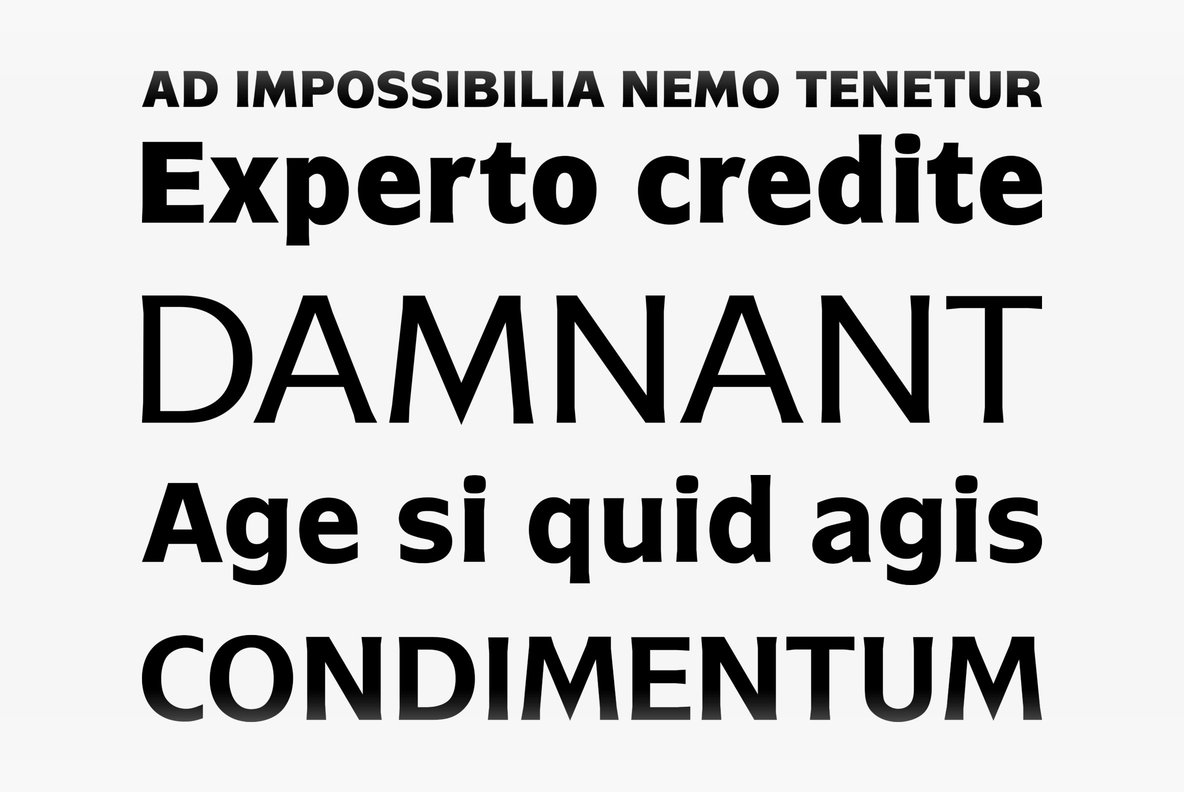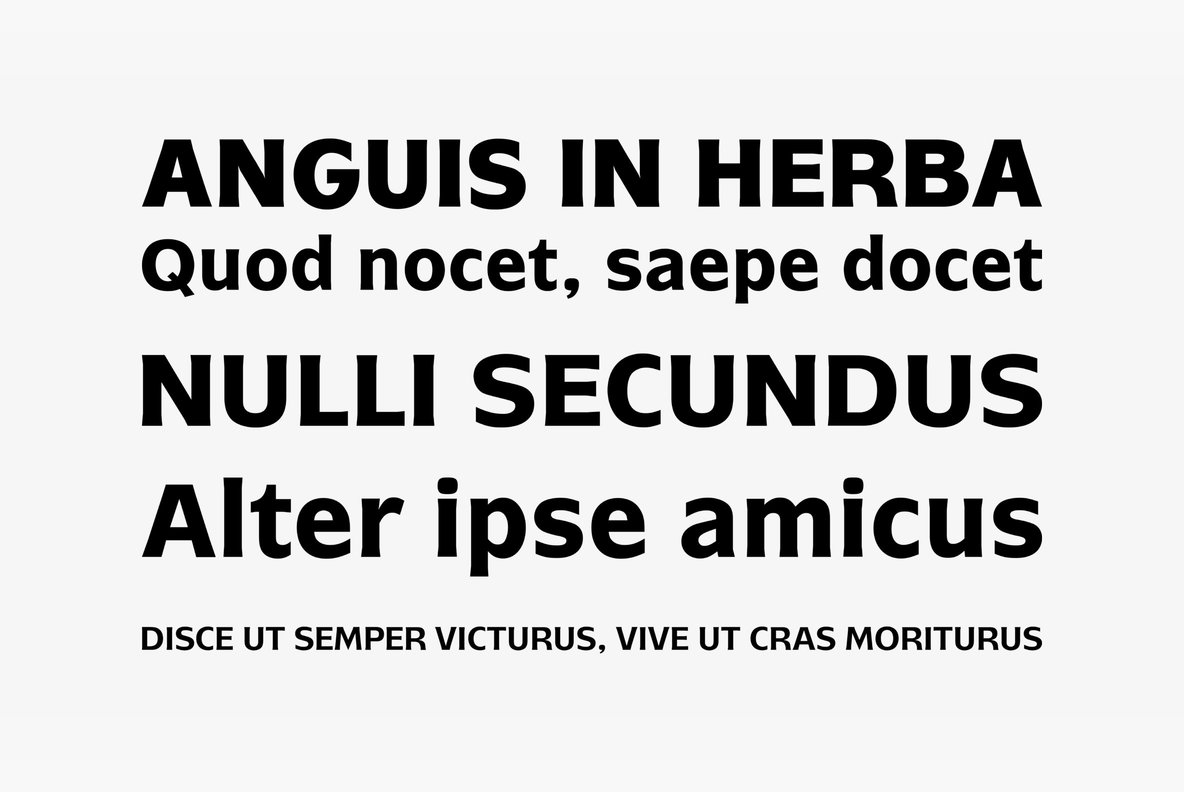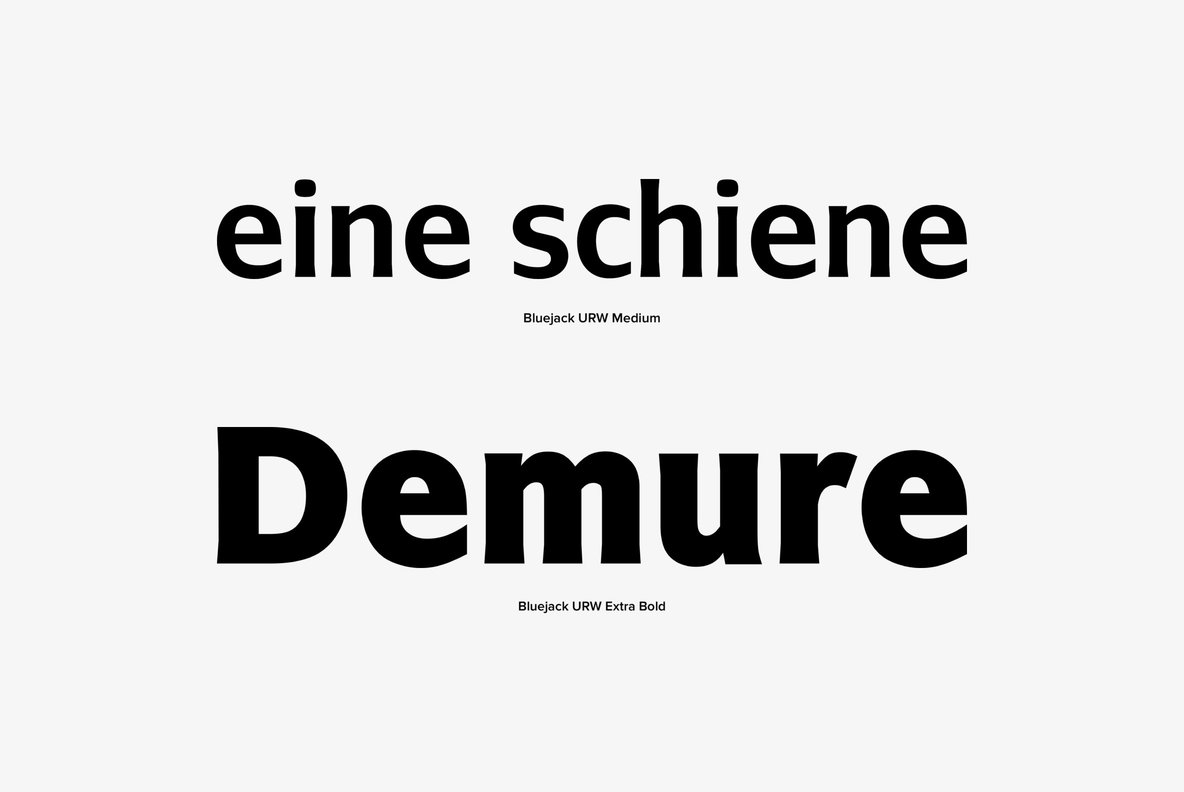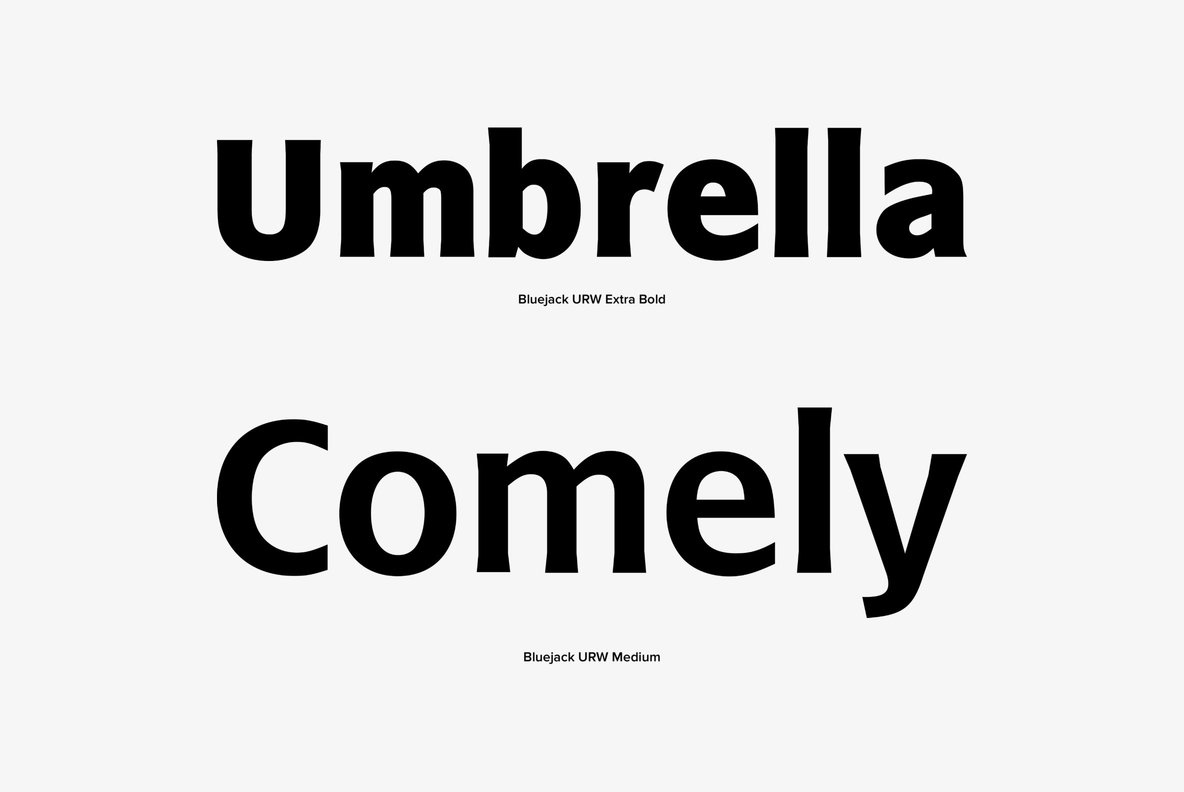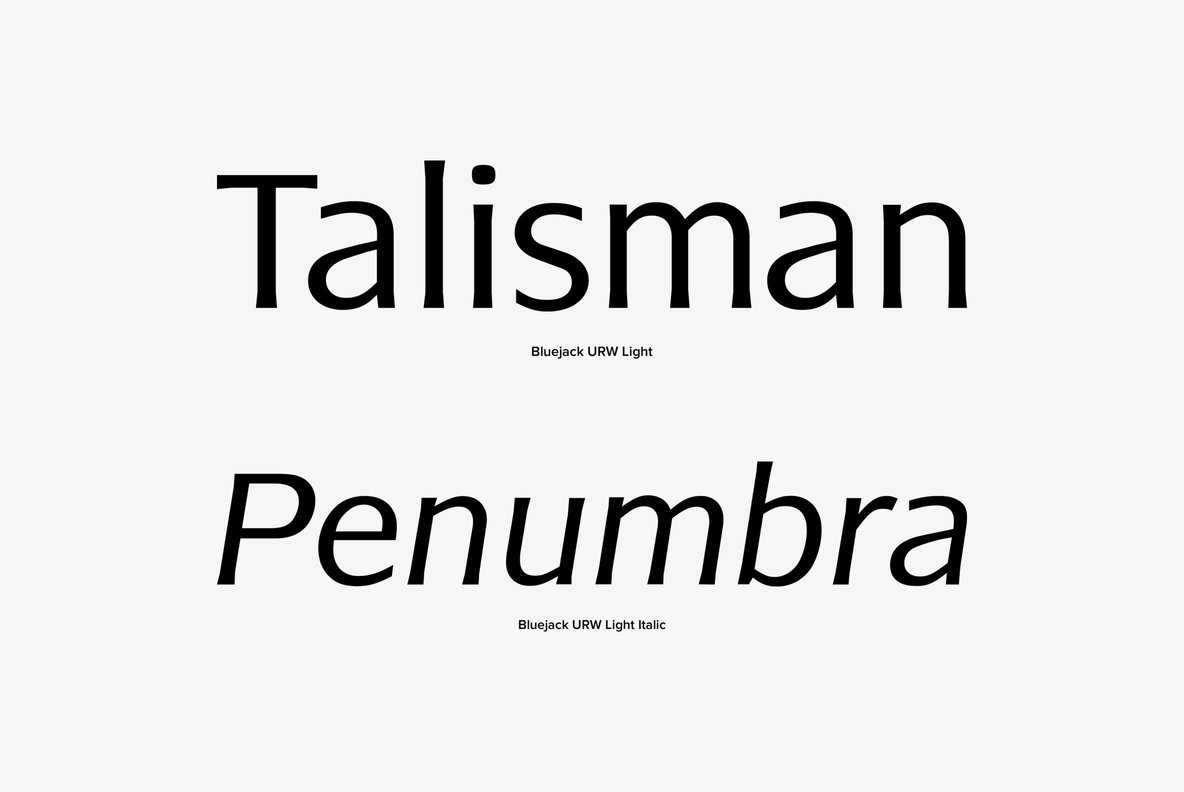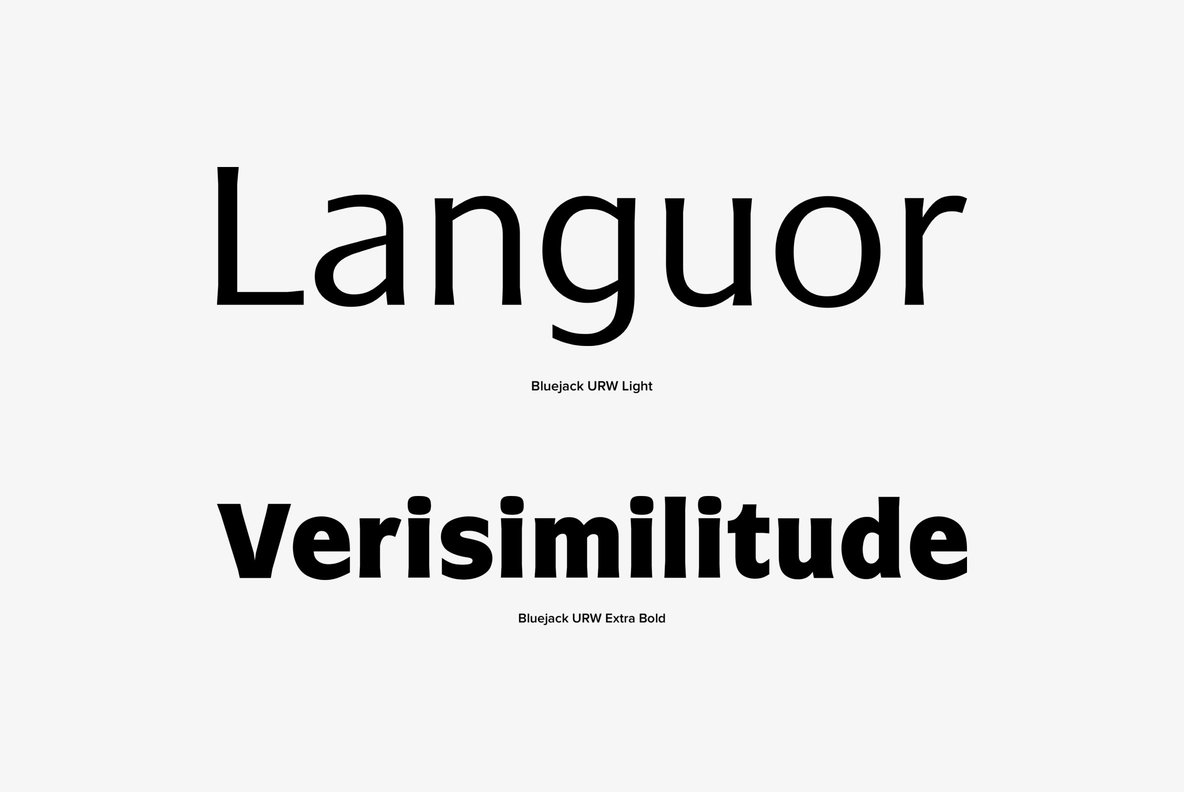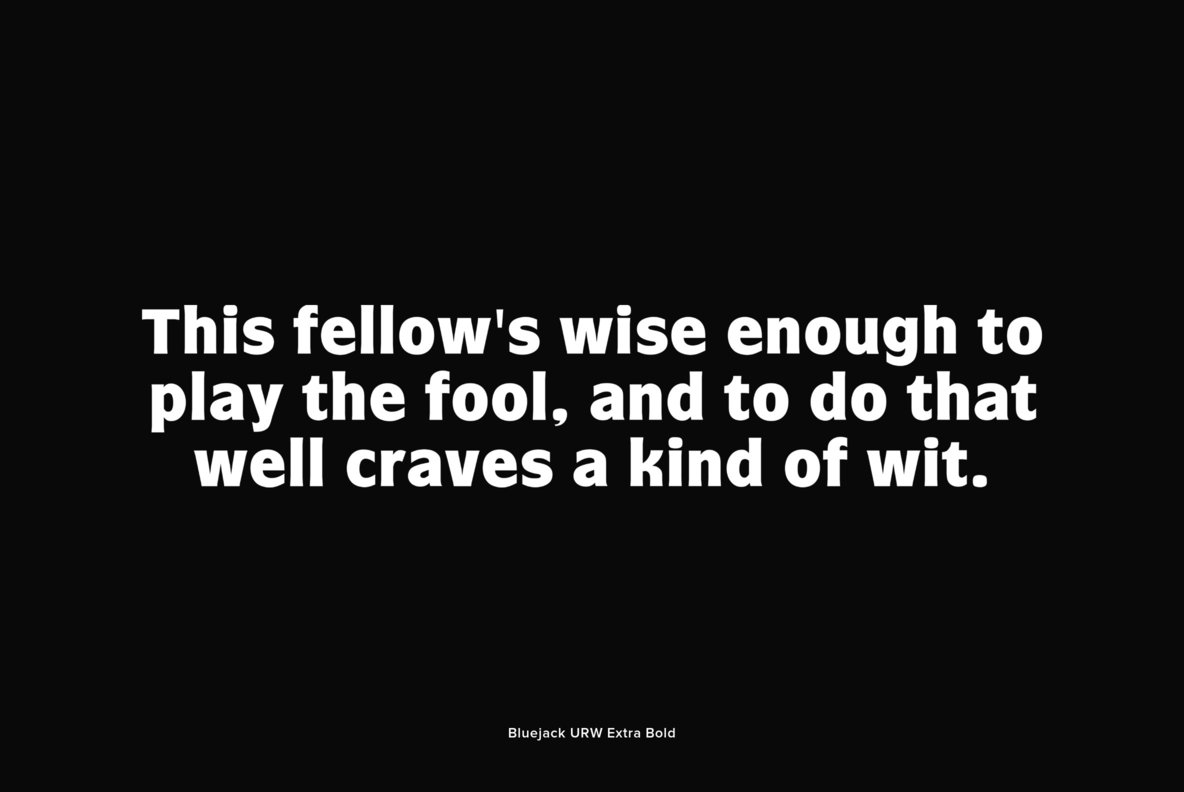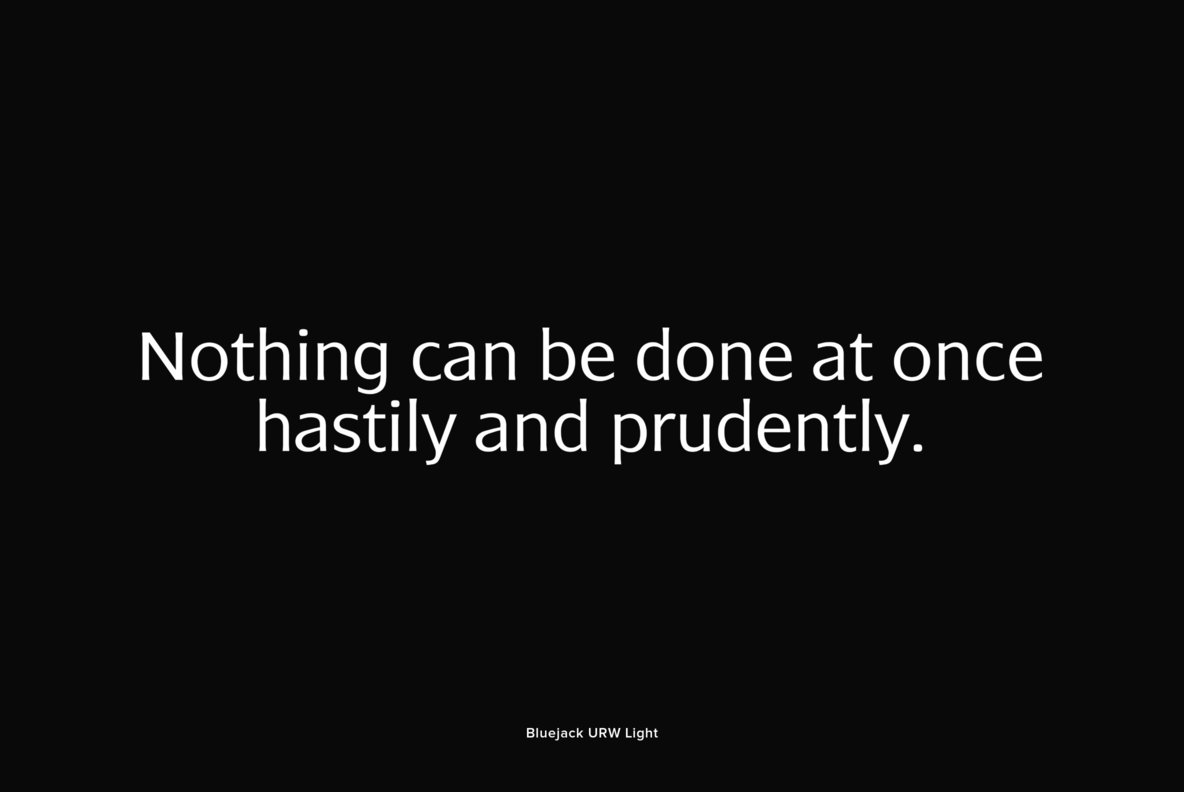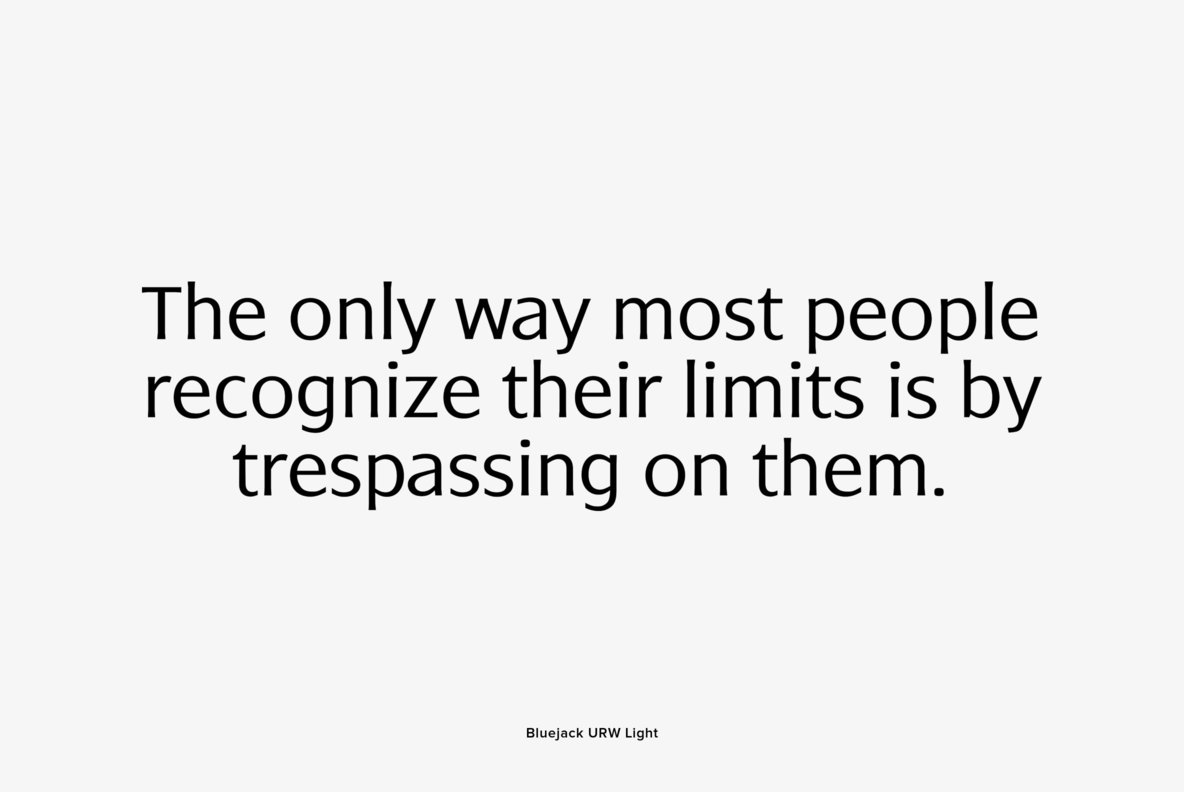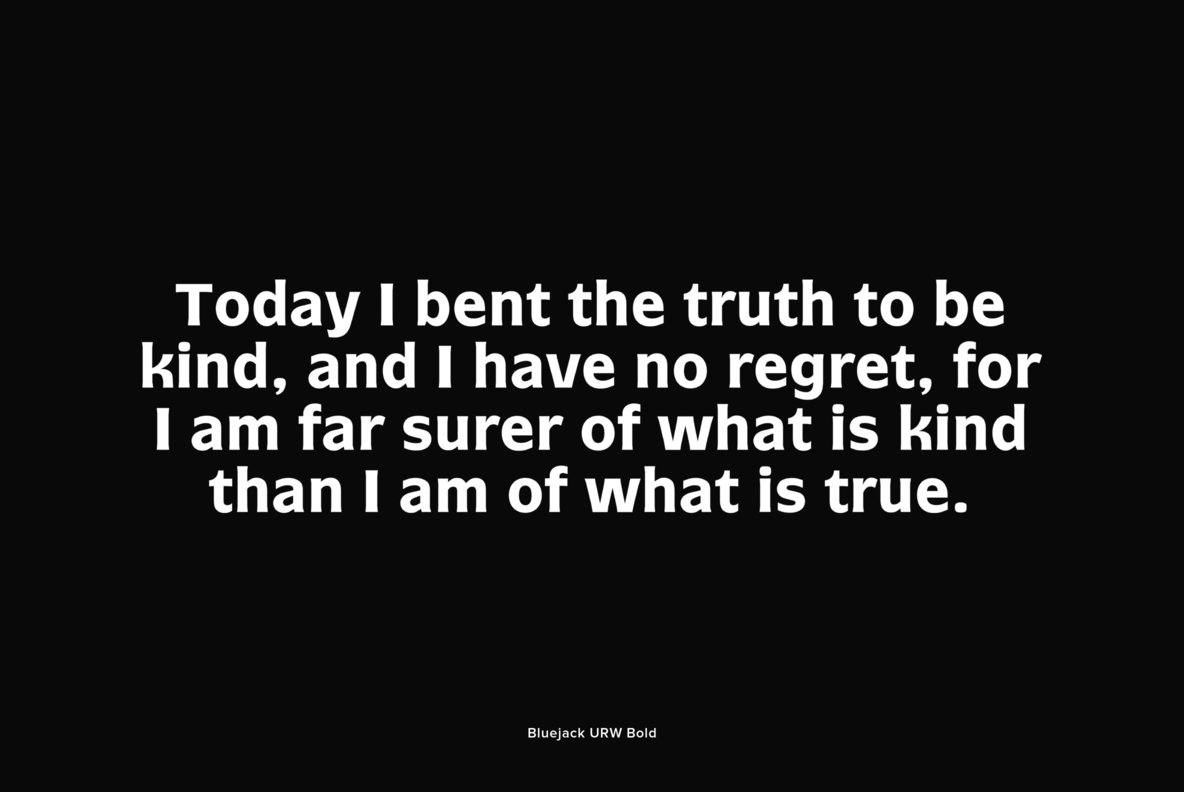
Bluejack
Designed by Phil Martin in 1974, Bluejack is a linear and glyphic serif font, published by URW Germany. Bluejack contains language support for West, East, Turkish, Baltic, and Romanian.